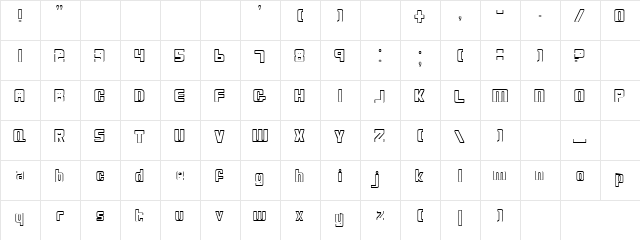
Gamioal Pro Regular
Design Context for Gamioal Pro Typeface
Gamioal Pro takes a measured approach to typography — its balanced proportions and neutral character make it a reliable workhorse for both digital and print work.